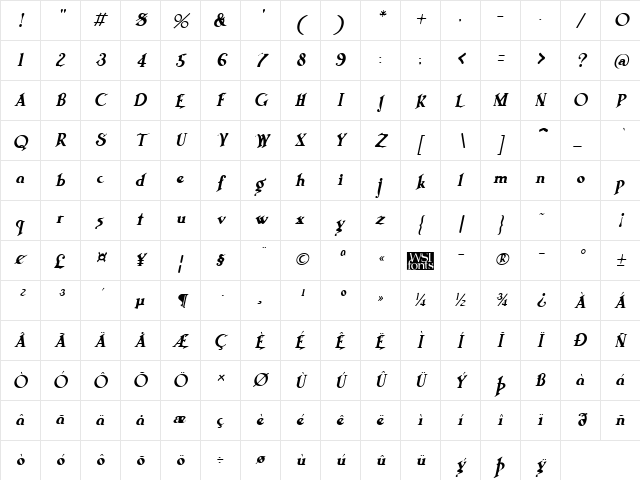
Trifles is a composed and adaptable typeface that performs quietly and consistently across a wide range of design contexts. The slanted form adds forward momentum and visual energy.